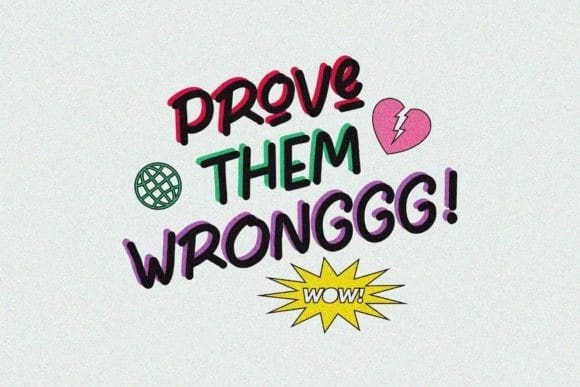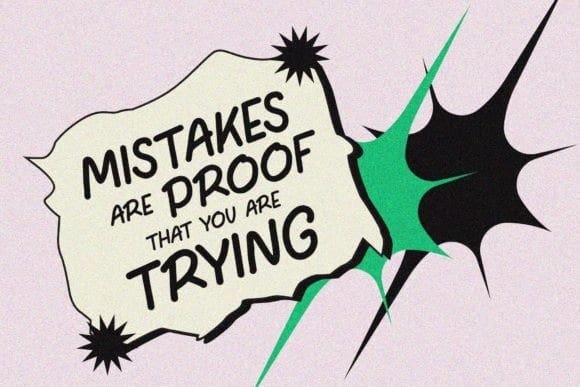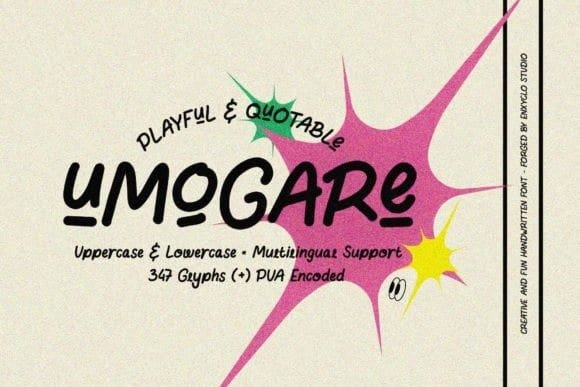
Umogare Playful Font
Umogare Playful Font is a brilliant, fun, and aesthetically pleasing display font, perfect for use on cheerful topics. Suitable for a wide pool of designs, especially when combined with bright colors.